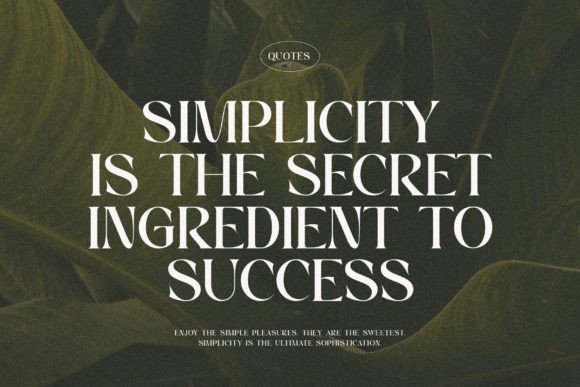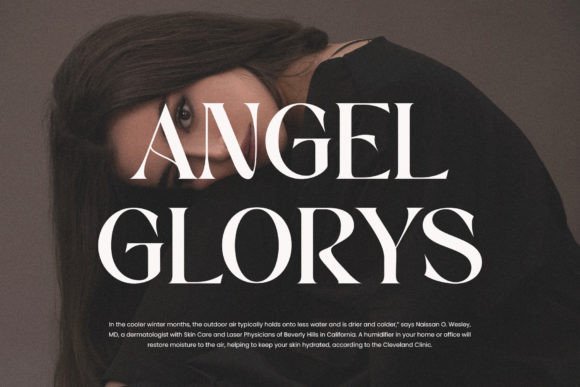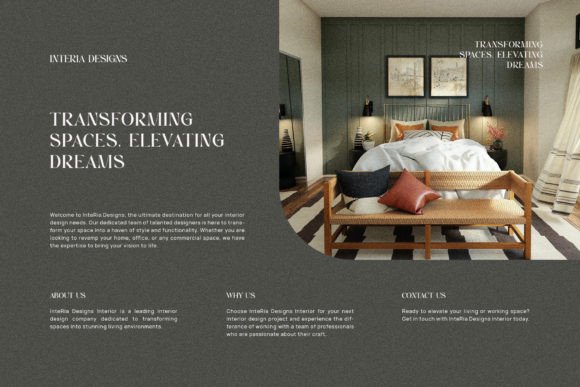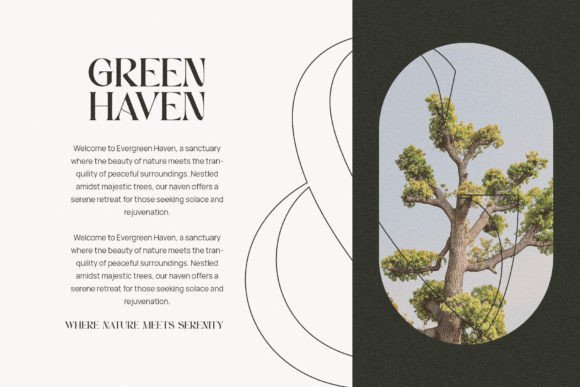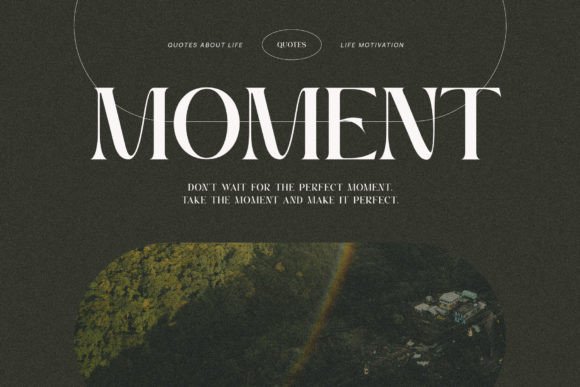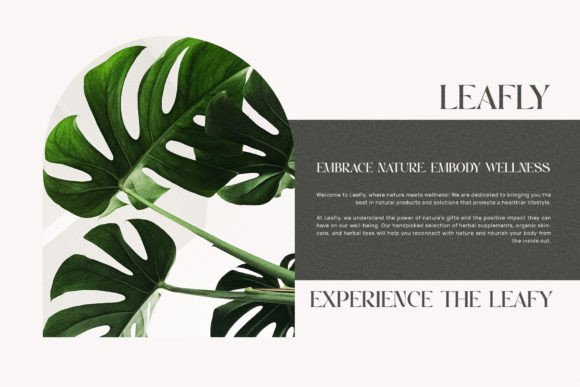
Introduction to Morins Font
Elegant serif typeface combined with a classy and modern style.
This type of font is very suitable for your various needs such as branding projects, logos, wedding designs, social media posts, advertisements, product packaging, product designs, labels, photography, watermarks, invitations, stationery, and any project, created with high level of readability .
Key Features of Morins Font
Why Choose Morins Font?
Morins Font offers exceptional quality and versatility, making it a valuable addition to your design toolkit. Whether you’re creating for personal projects or commercial use, Morins Font delivers professional results.